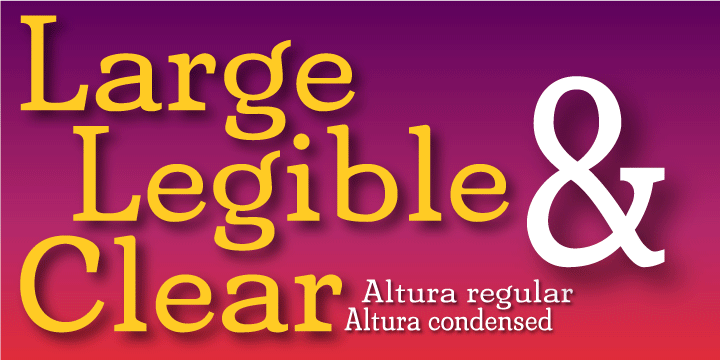
Uncommon-serifs with common Glyphs.
Recommanded for posters, titles, book covers, books, greeting cards, signage, packaging, invitations, magazine articles and advertising.